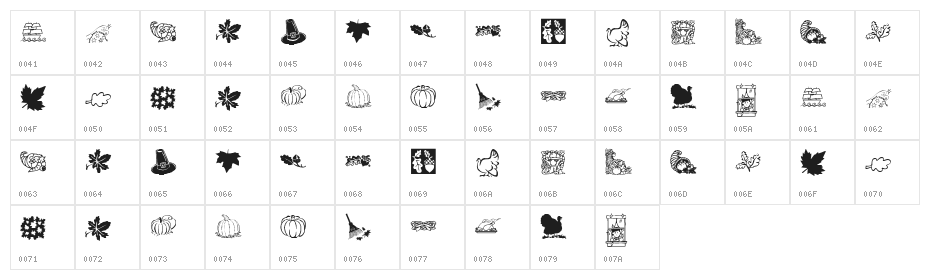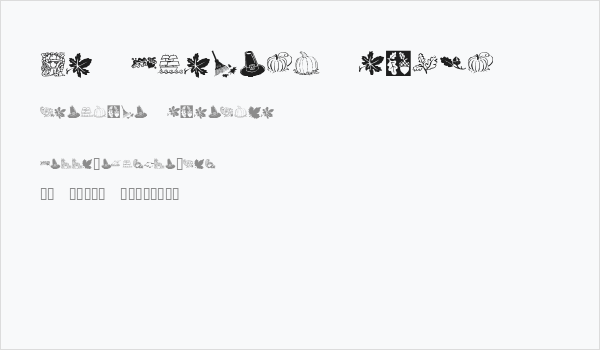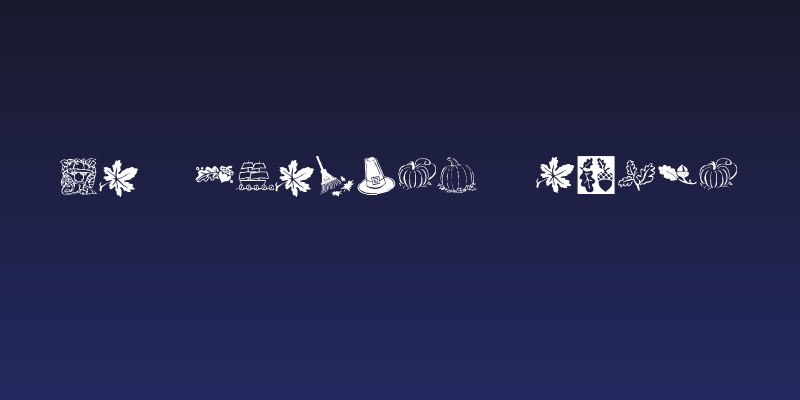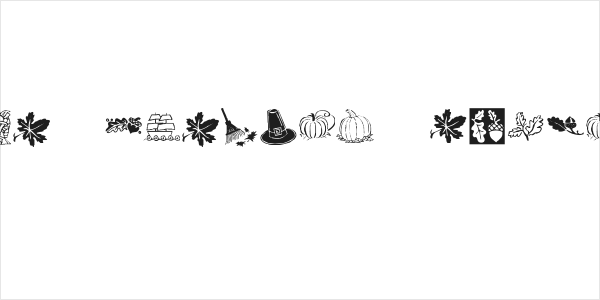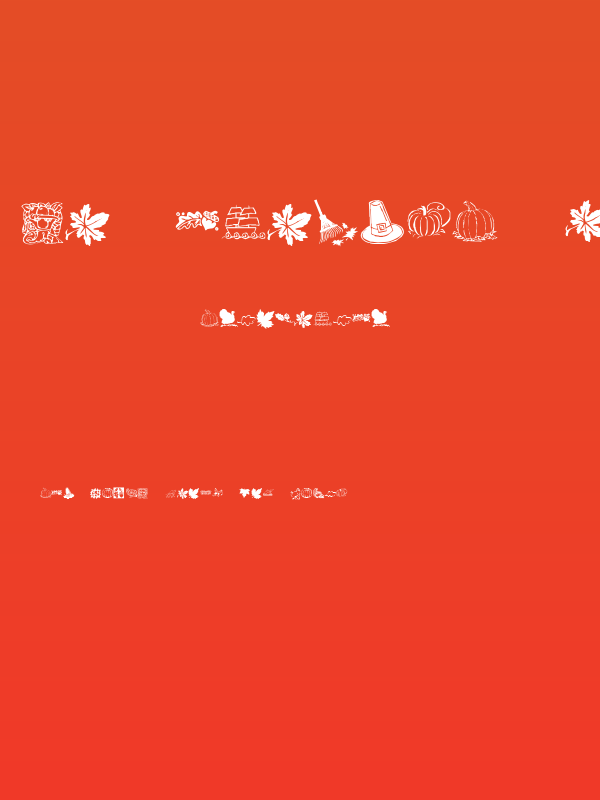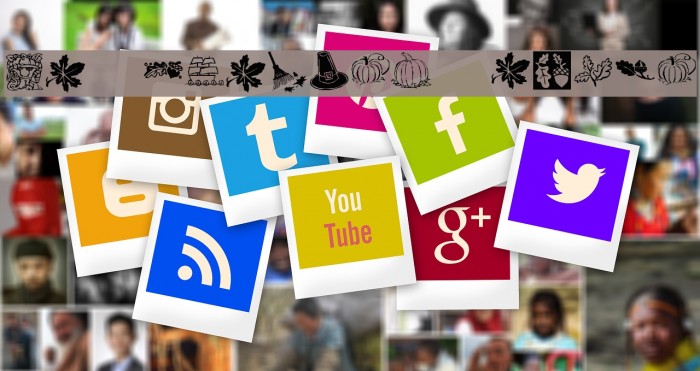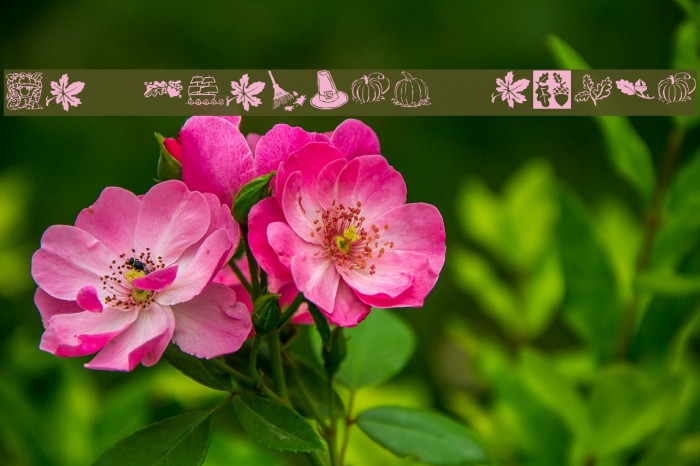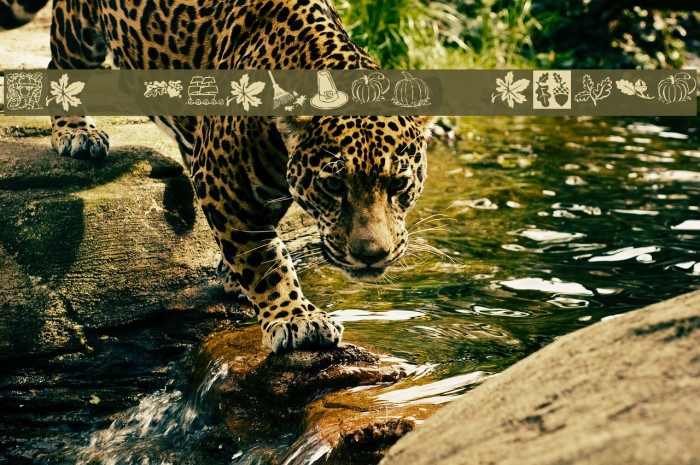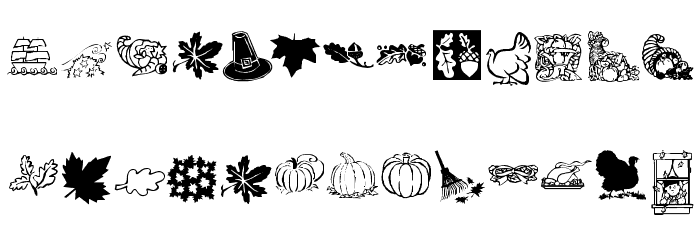
KR Harvest Dings Font
KR Harvest Dings Description
This is a decorative dingbat font featuring a variety of harvest-themed icons. The characters include images of autumn leaves, pumpkins, turkeys, and other symbols associated with the fall season and Thanksgiving. Each symbol is intricately designed, capturing the essence of harvest time with a playful and festive style. The icons are bold and clear, making them suitable for decorative purposes. The font does not include traditional alphabetic or numeric characters, focusing solely on thematic imagery.
| Use Case | Decorative elements, Seasonal designs |
| Proposed Projects | Ideal for creating seasonal greeting cards, festive invitations, or decorative elements in fall-themed designs. |